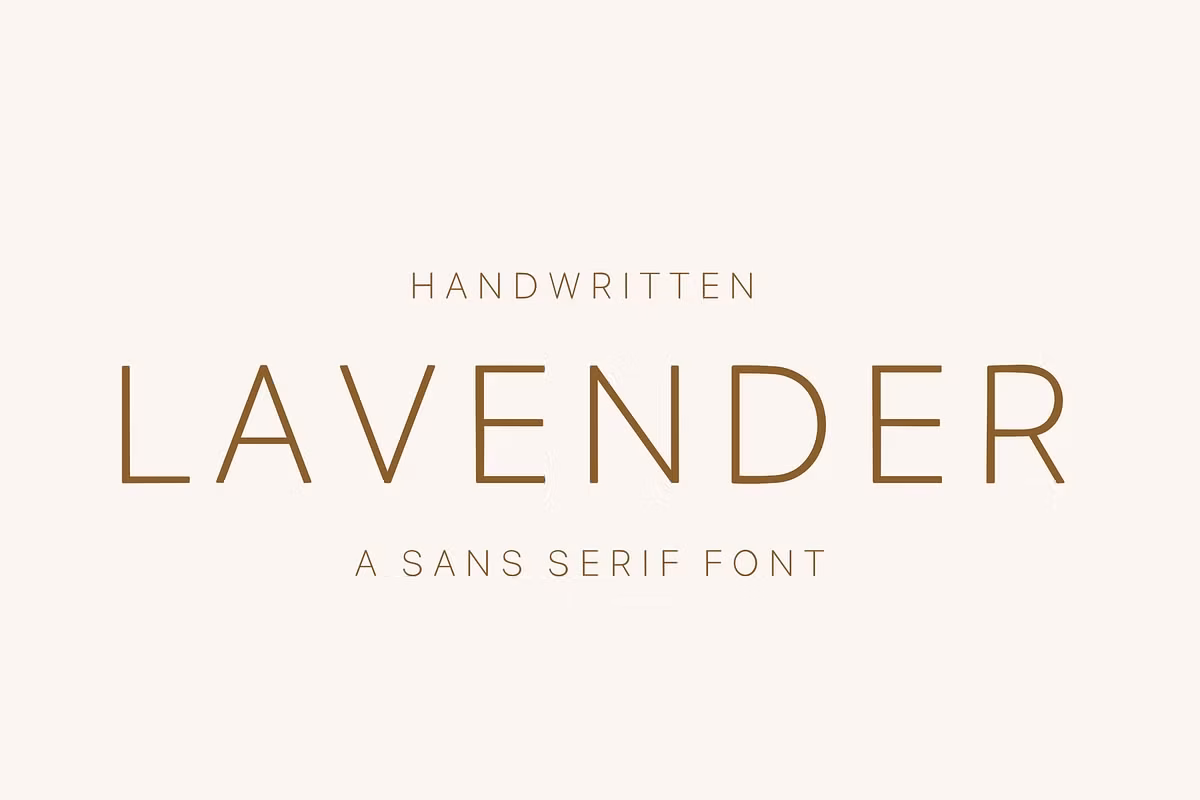
Lavender - Modern Sans Serif Font Free Download is a clean, minimalist typeface ideal for modern branding, website headers, social media graphics, and editorial layouts. With its balanced proportions and contemporary style, Lavender brings clarity and sophistication to any design. Please note that you must purchase this font for commercial use, but it is available as a free download for testing purposes. Whether you're refreshing your brand or creating sleek visual content, Lavender - Modern Sans Serif Font Free Download offers a professional and stylish touch to elevate your design projects effortlessly.